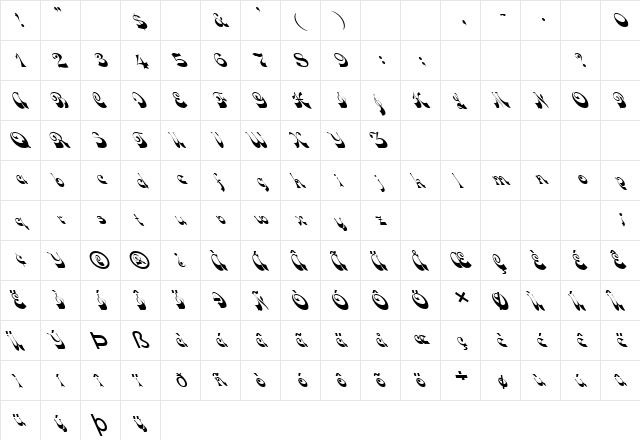
FZ JAZZY 15 LEFTY Normal Font Preview
FZ JAZZY 15 LEFTY Normal
FZ JAZZY 15 LEFTY Normal Font Details
Design Context for FZ JAZZY 15 LEFTY Typeface
FZ JAZZY 15 LEFTY is a composed and adaptable typeface that performs quietly and consistently across a wide range of design contexts.